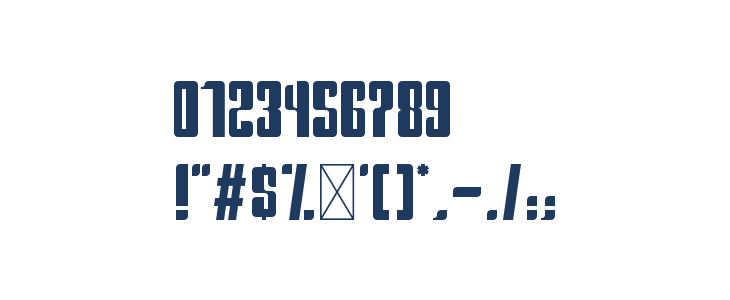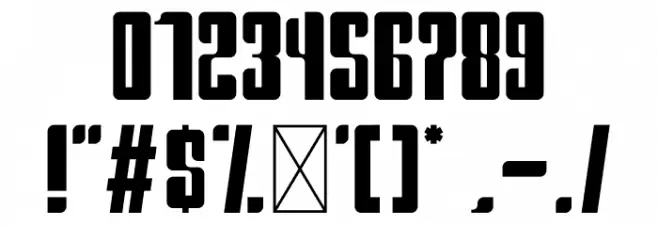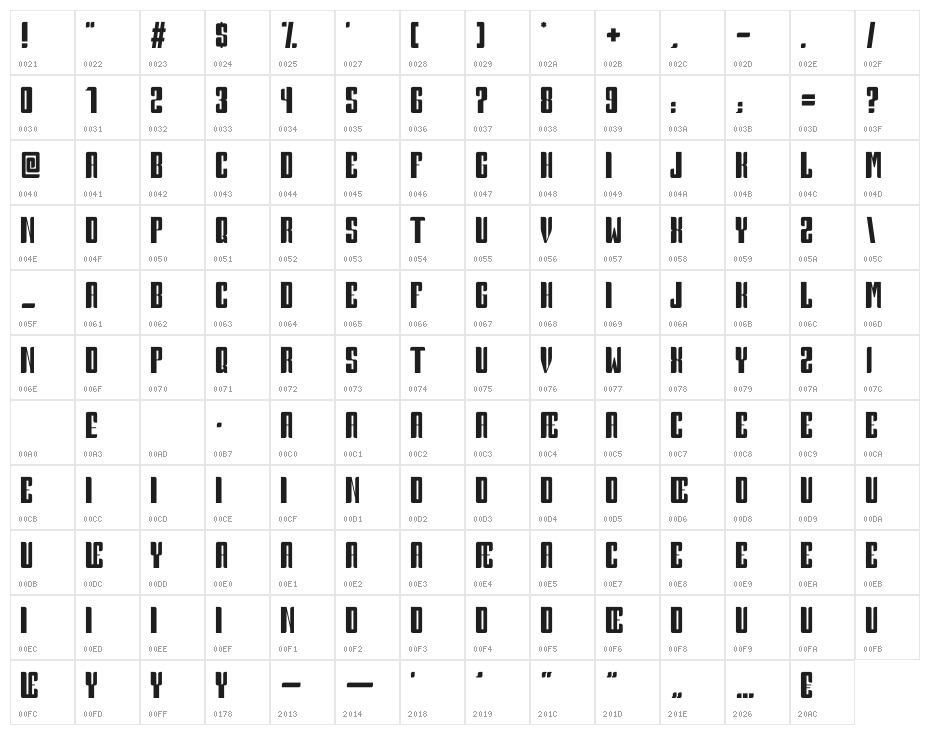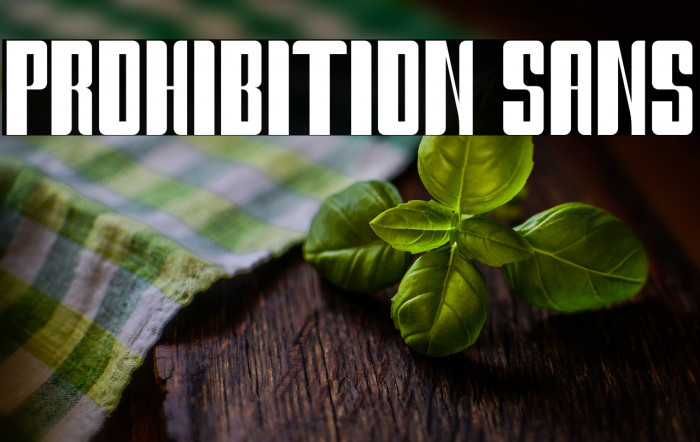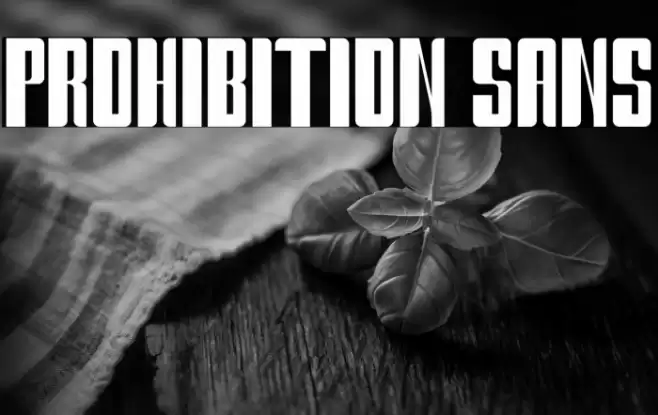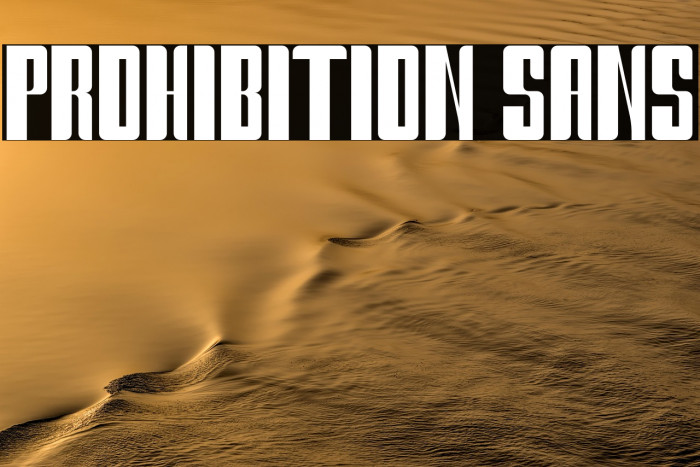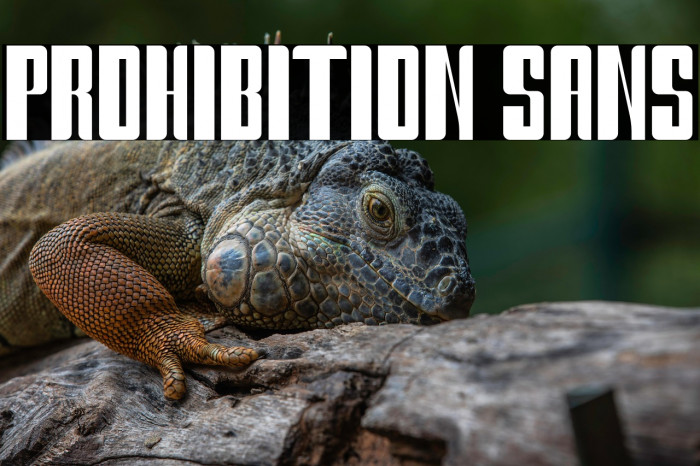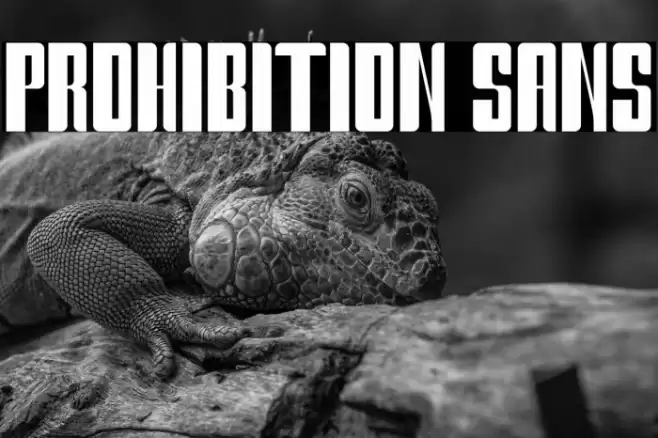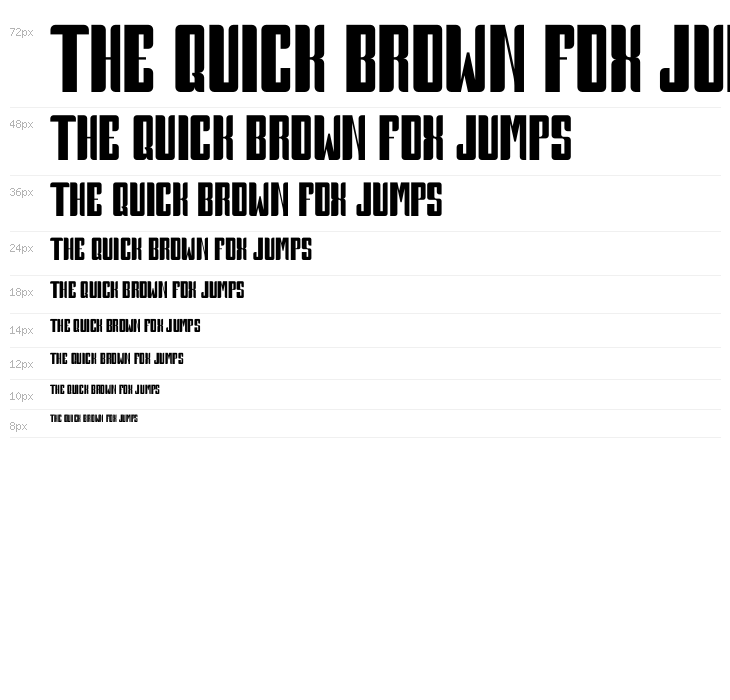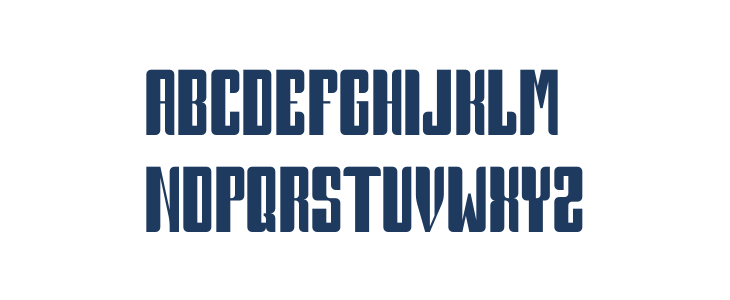
Prohibition Sans Font
Prohibition Sans Description
This font features a bold, geometric style with strong vertical lines and sharp angles, giving it a commanding presence. The uppercase letters are tall and narrow, with consistent stroke widths that create a uniform appearance. The lowercase letters maintain the same boldness, ensuring readability while retaining the font's distinctive style. Numbers and special characters are designed to match the overall aesthetic, making them easily integrated into various design projects. The font's clean lines and modern look make it suitable for a variety of applications, from branding to signage.
Proposed ProjectsIdeal for branding, signage, posters, and any project requiring a bold, modern typeface.